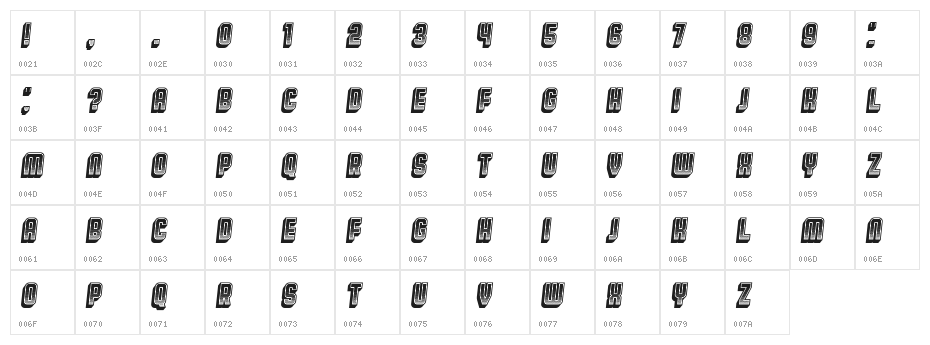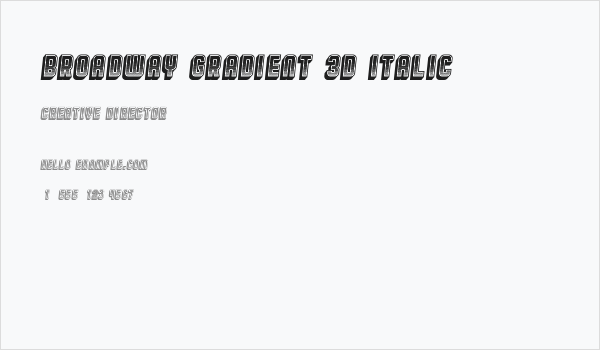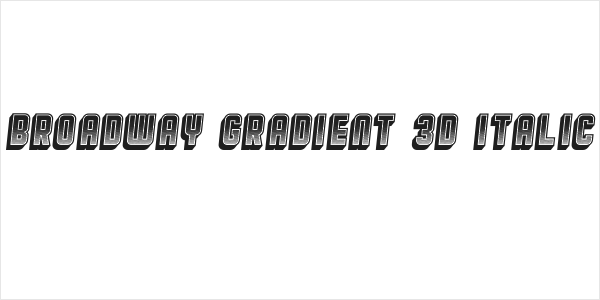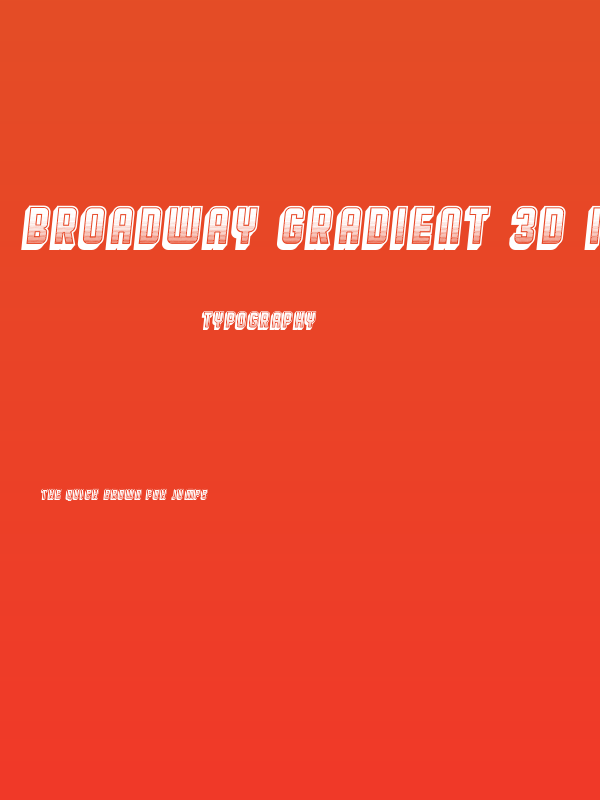
Broadway Gradient 3D Italic Font
Broadway Gradient 3D Italic Description
This font features a bold, three-dimensional style with a gradient effect that gives it a striking and dynamic appearance. The letters are uppercase and have a strong, solid structure with a slight italic slant, adding a sense of movement and energy. The 3D effect is enhanced by a shadow that creates depth, making the letters stand out prominently. The gradient within each character transitions smoothly, adding a modern touch to the overall design. This font is ideal for attention-grabbing headlines and titles, where a bold statement is required.
| Proposed Projects | Ideal for use in posters, advertisements, and branding materials where a bold and modern look is desired. |